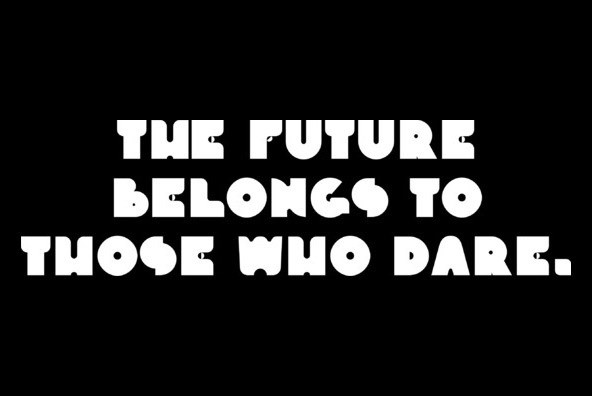
Lucien is our typographical hommage to Lucien de Roeck. The Belgian designer draw the basic shapes of the characters at his typography class on the Academy in Brussels in 1934.
Lucien is our typographical hommage to Lucien de Roeck. The Belgian designer draw the basic shapes of the characters at his typography class on the Academy in Brussels in 1934. Later in 1958, Lucien de Roeck, would become very famous with his logo design for the world-expo in Brussels. In 2012 we digitized and design the missing characters and made the font complete. Made by Novo Typo. Designers from Amsterdam, The Netherlands.